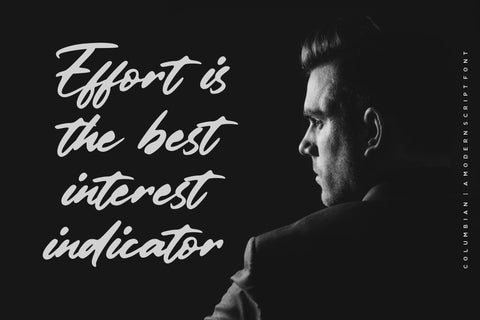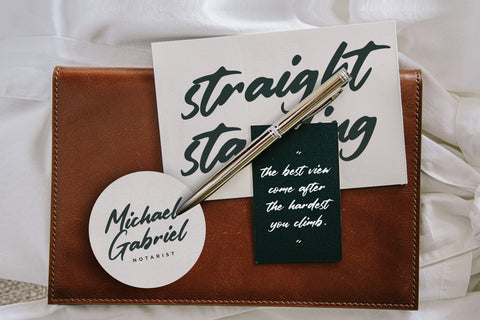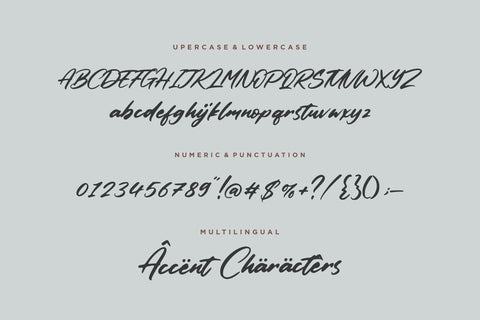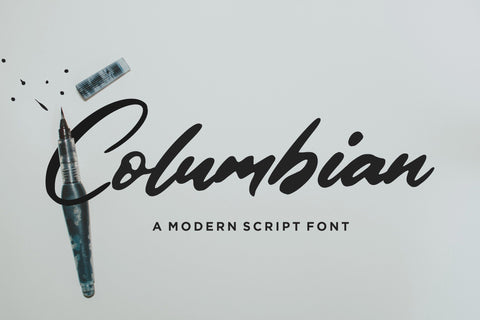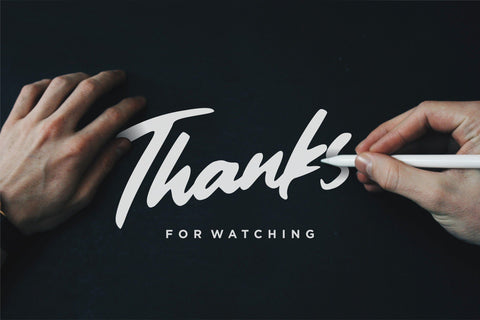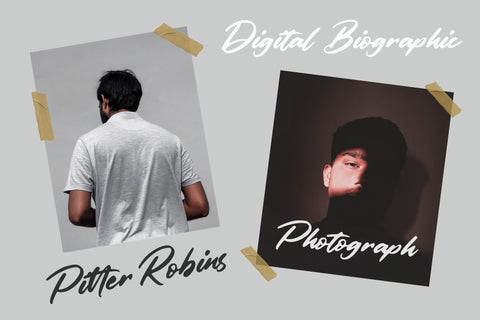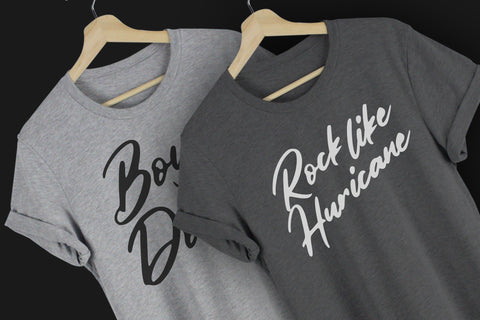
Columbian Modern Handwritten Font
Columbian is a Modern Handwritten Font.
Columbian is a lovely and delicate script font that exudes elegance and class. This font was particularly crafted for those who need a beautiful and refreshing look to their designs.